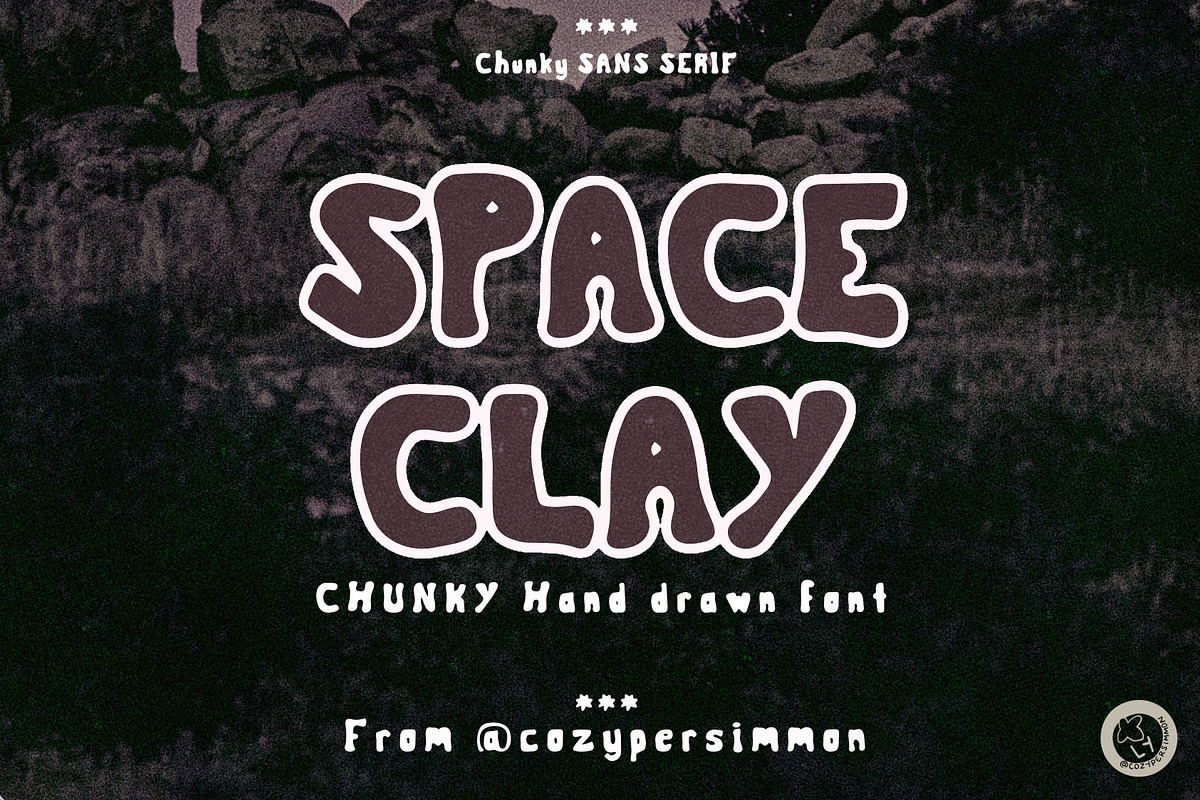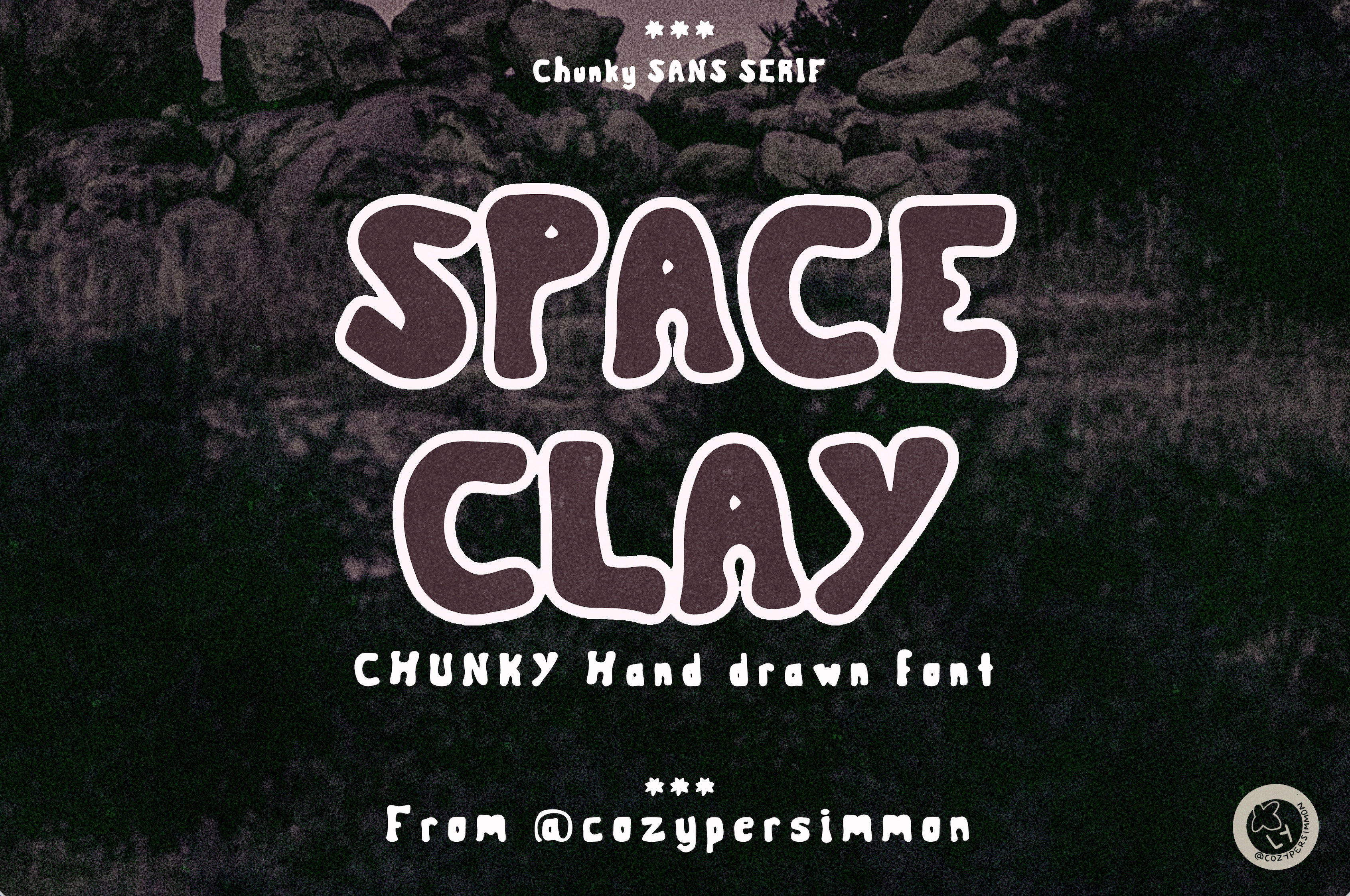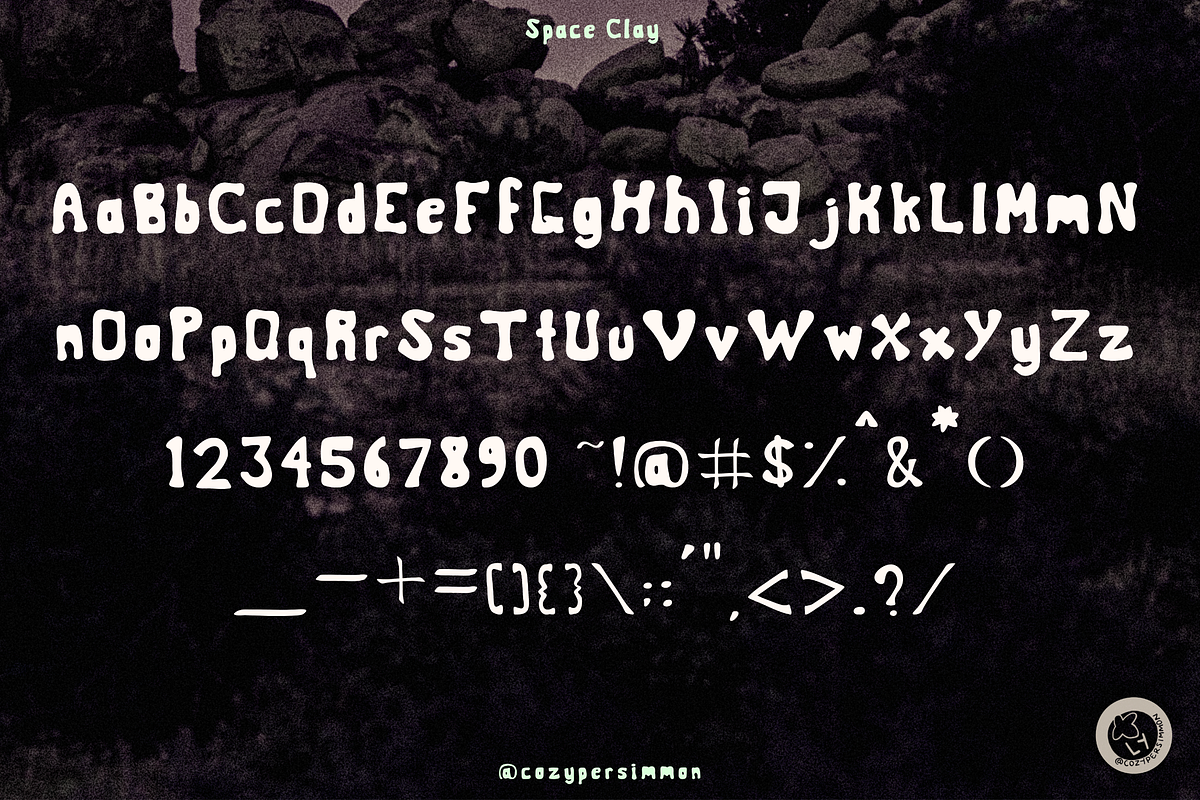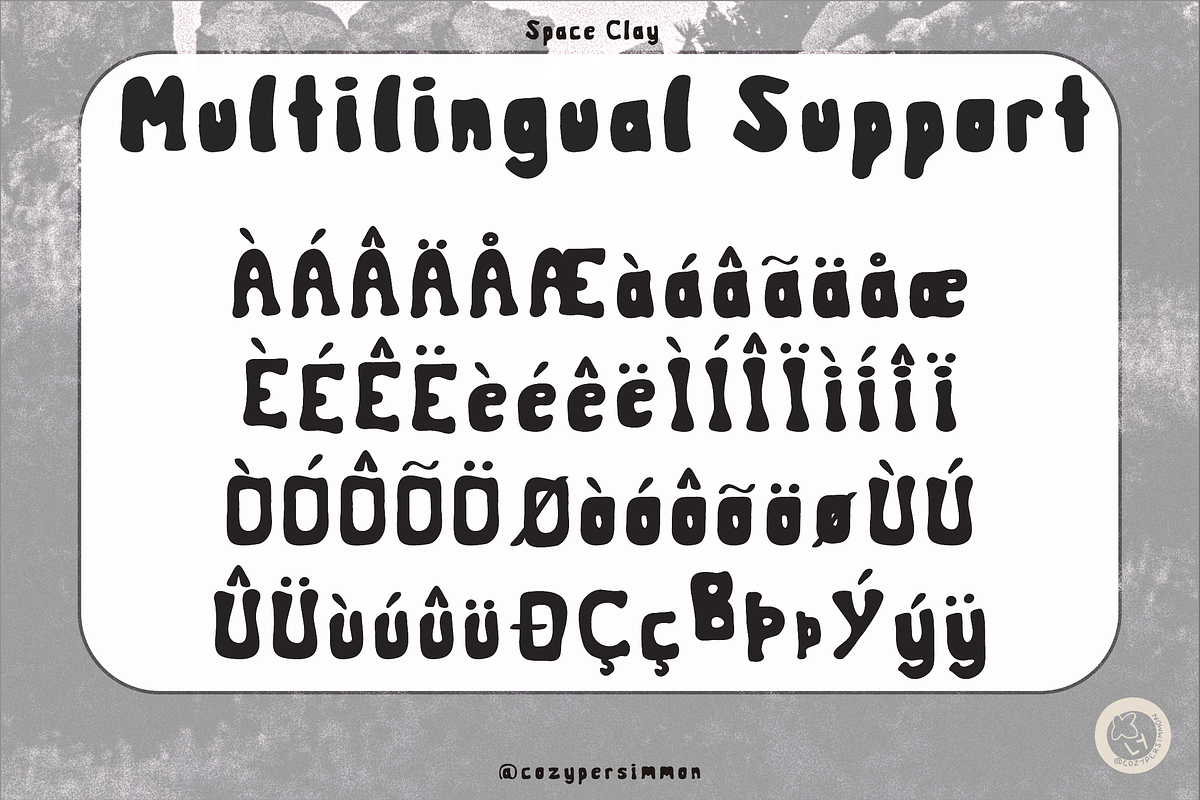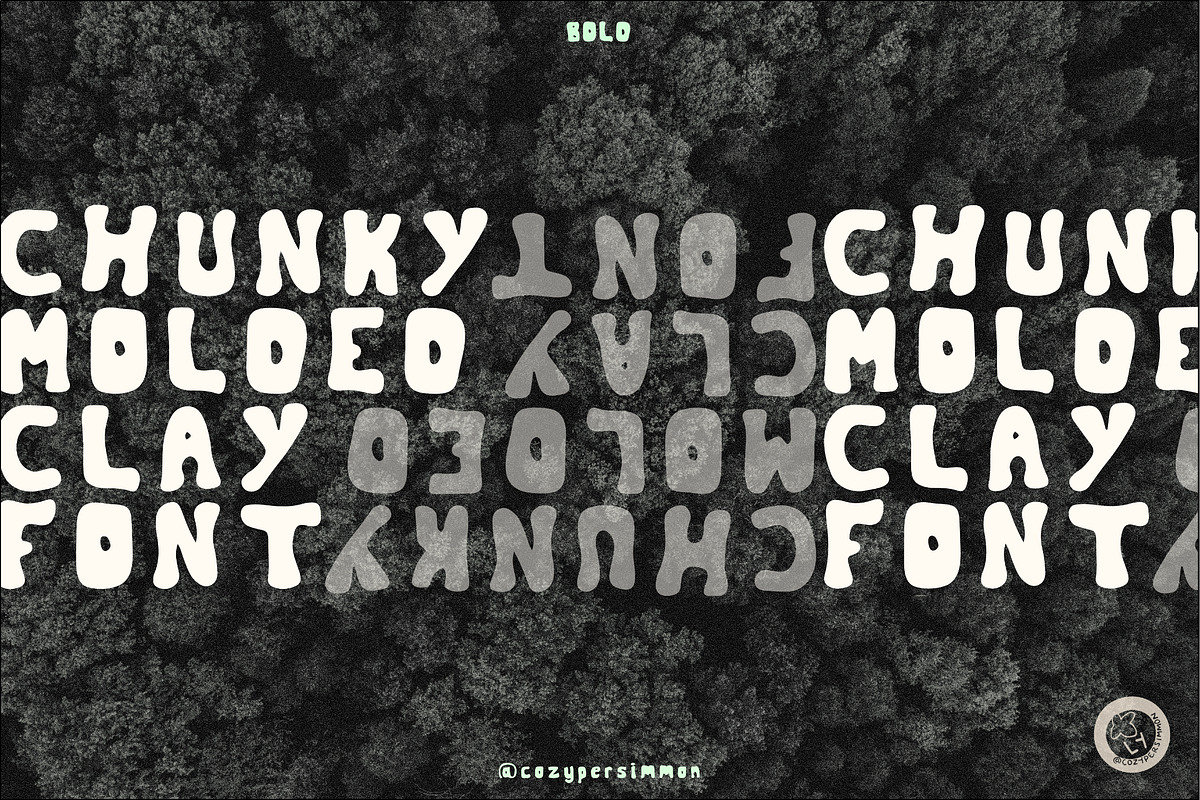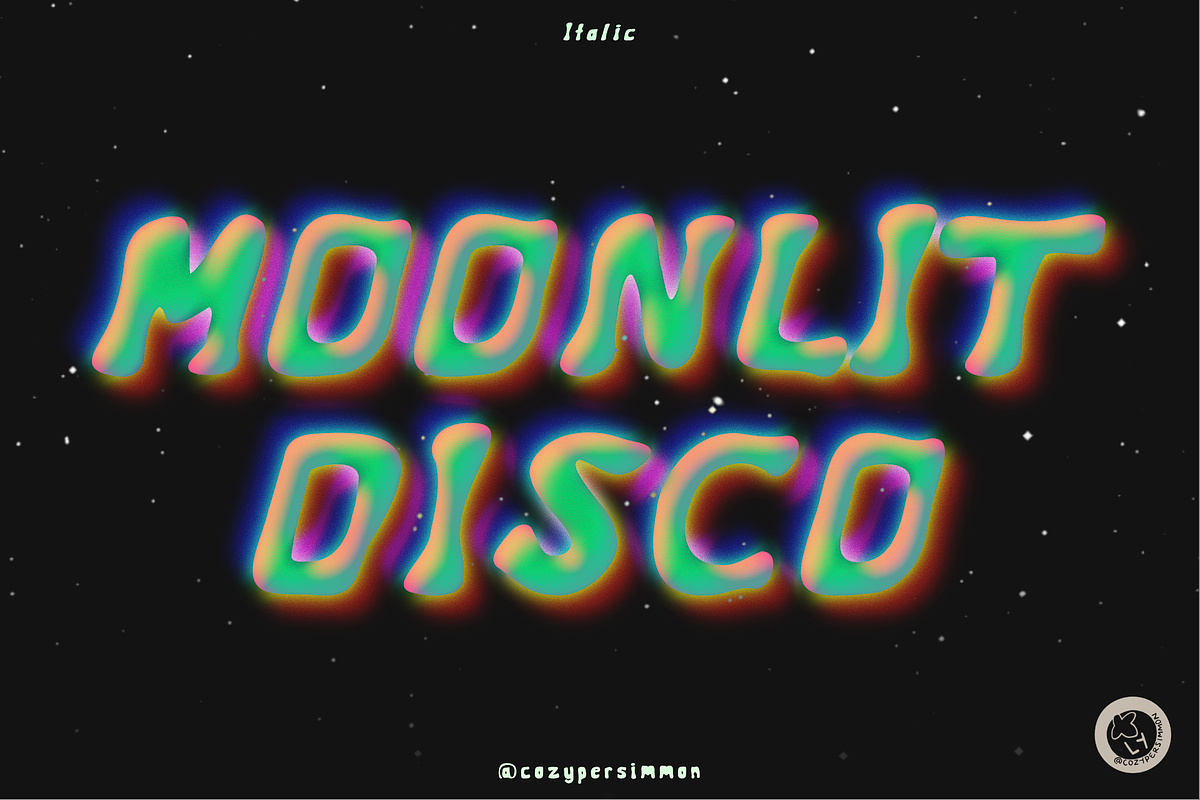
Space Clay - Chunky Display Font
Space Clay font family is organic and chunky with a slight serif. Regular, Italic and Bold styles are included in this wonky font family. Use blend modes and effects like chromatic aberration to achieve new looks and styles. Italic and Bold styles available to support your project needs. Each glyph is hand-drawn for a unique look.
Uppercase and lowercase
Numbers and symbols